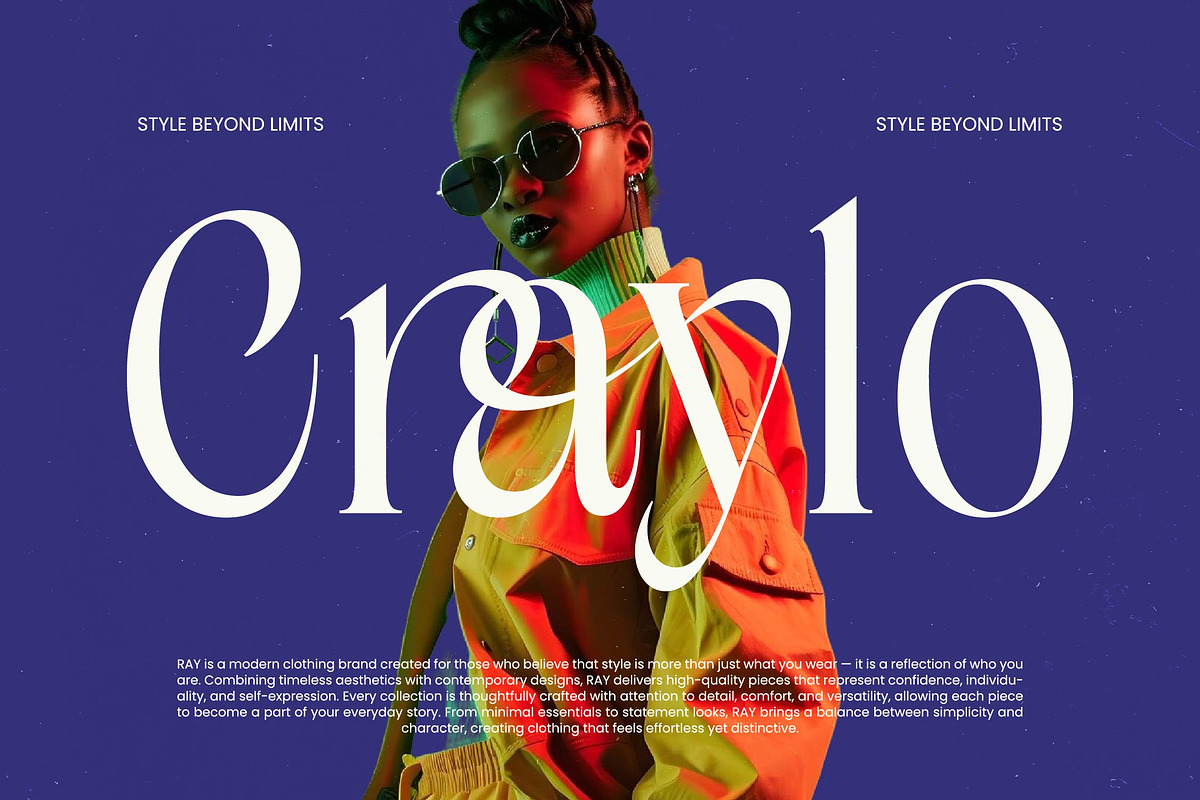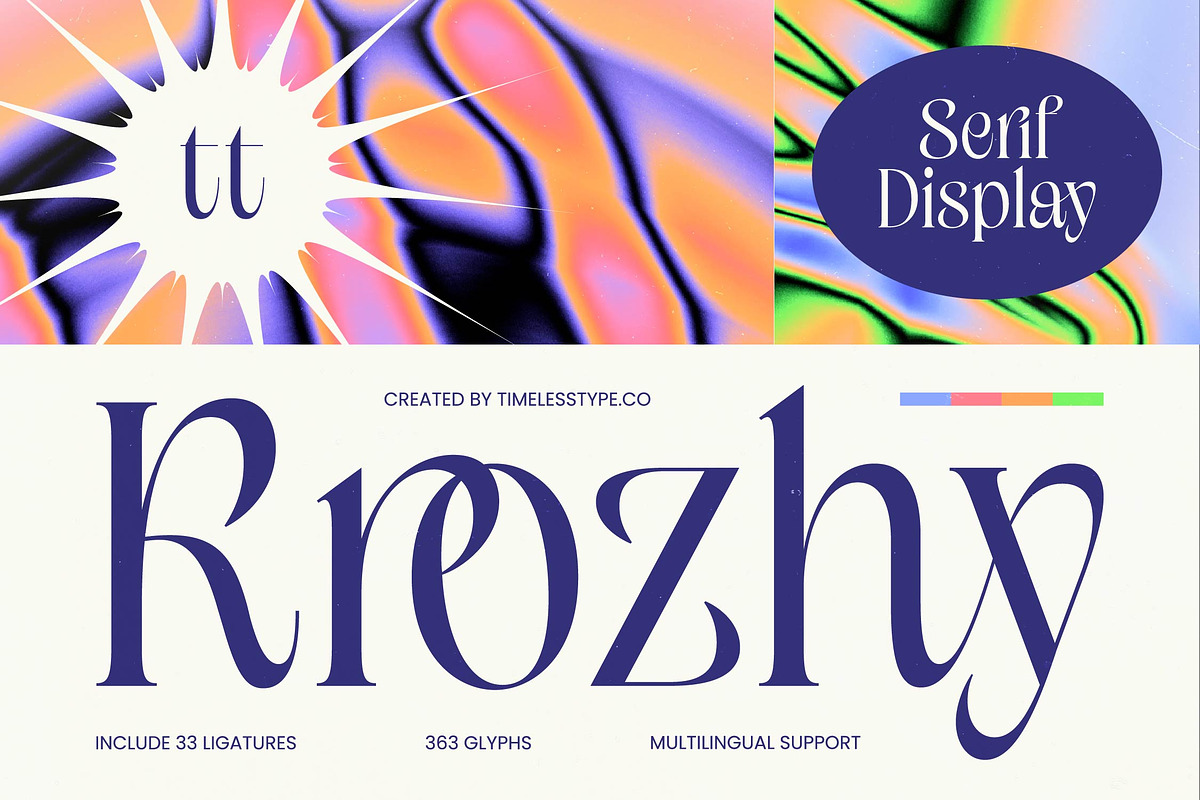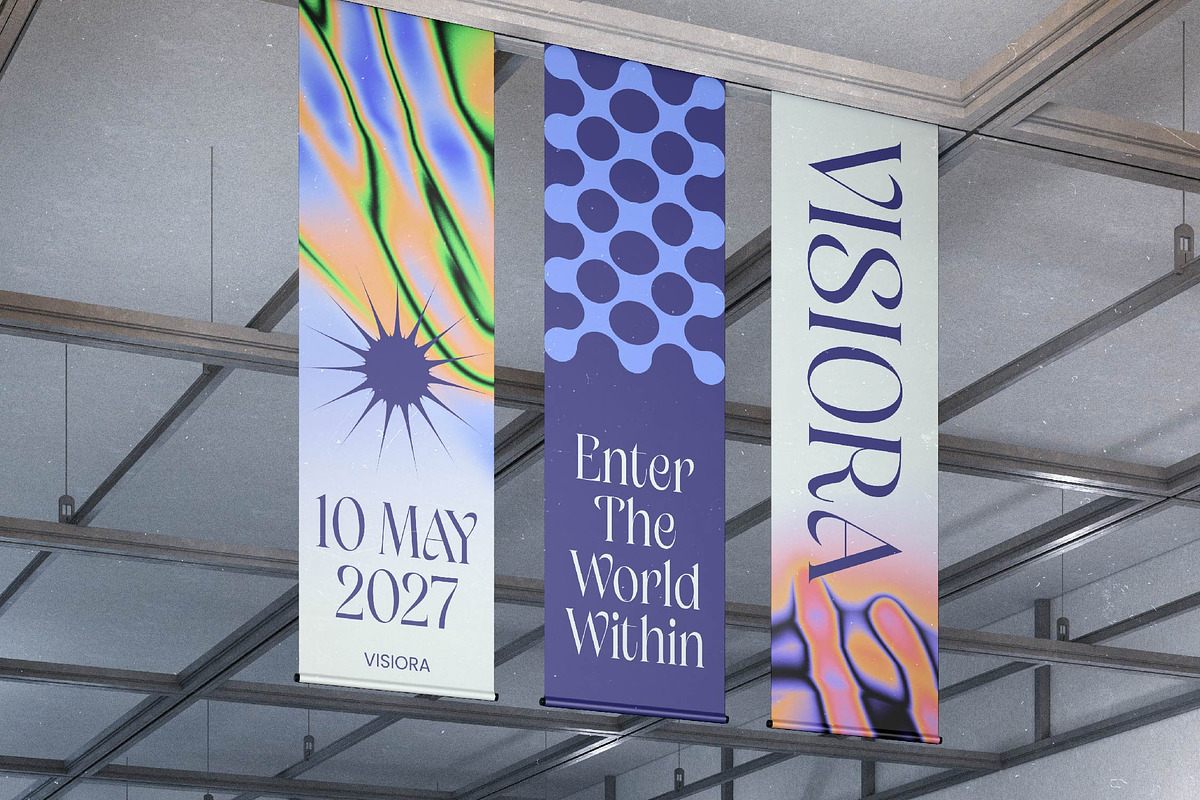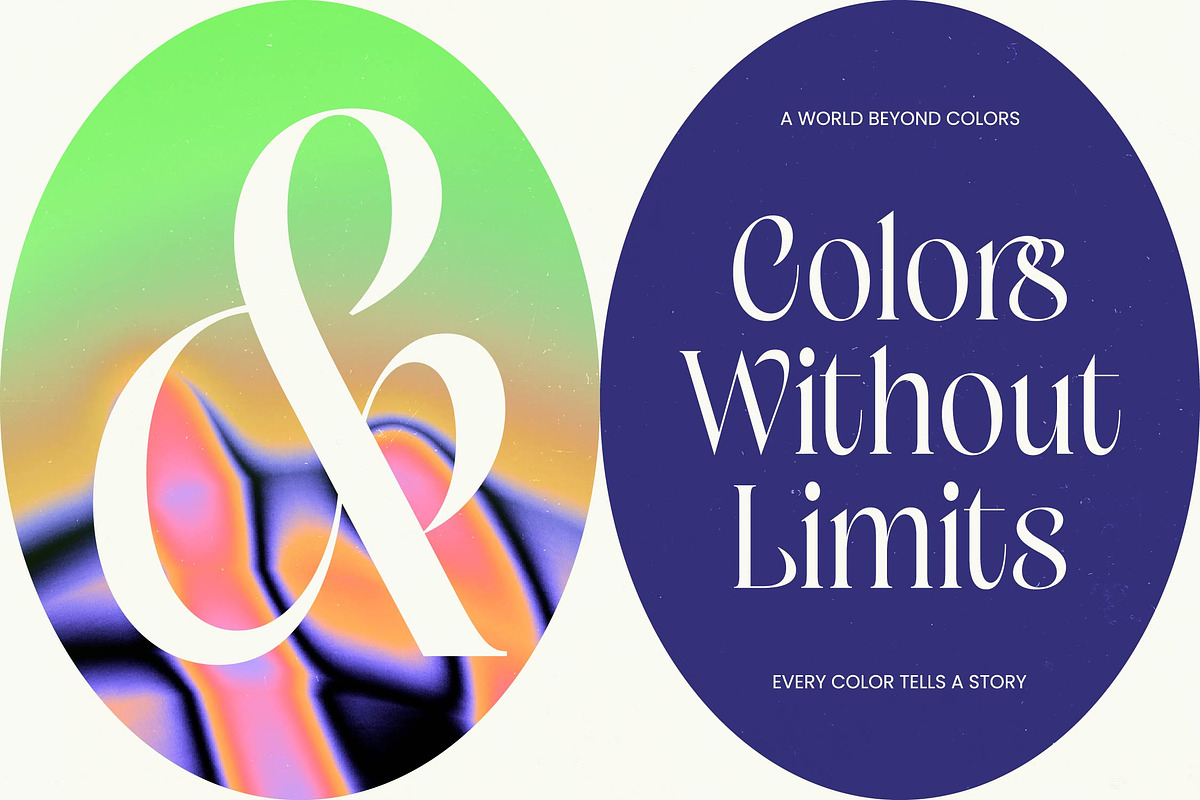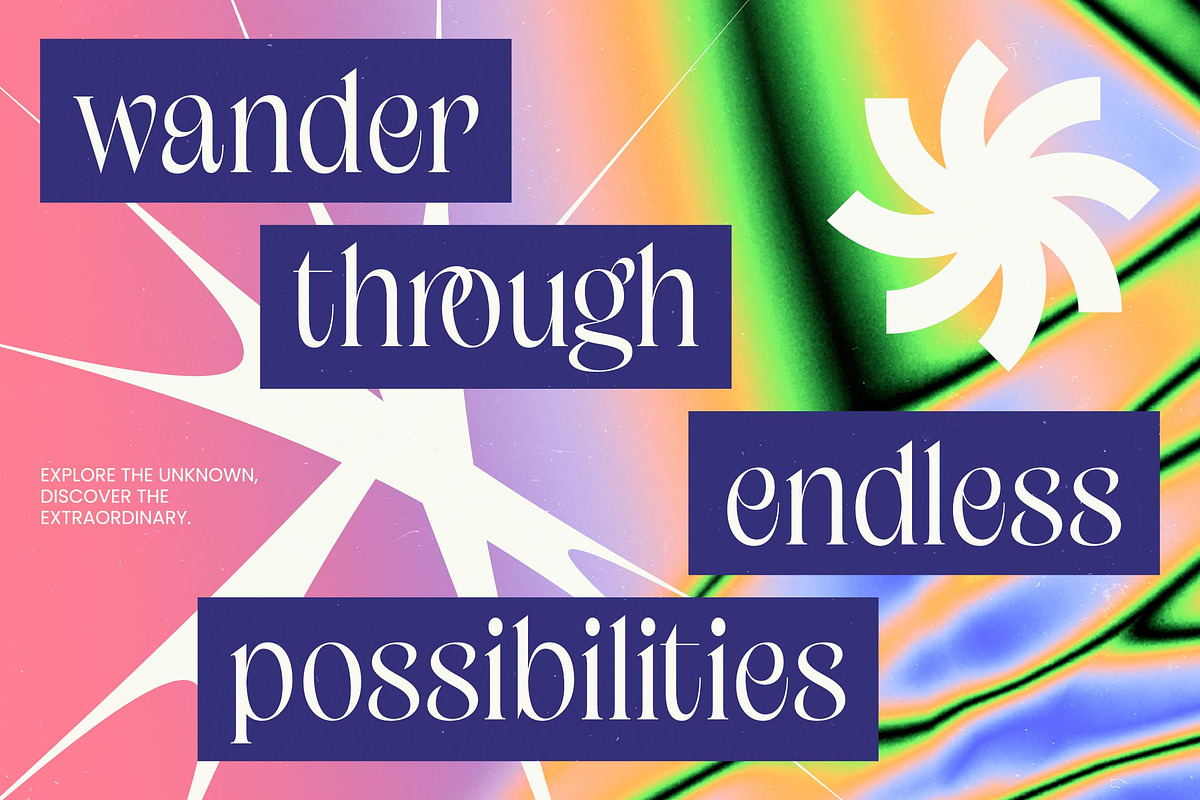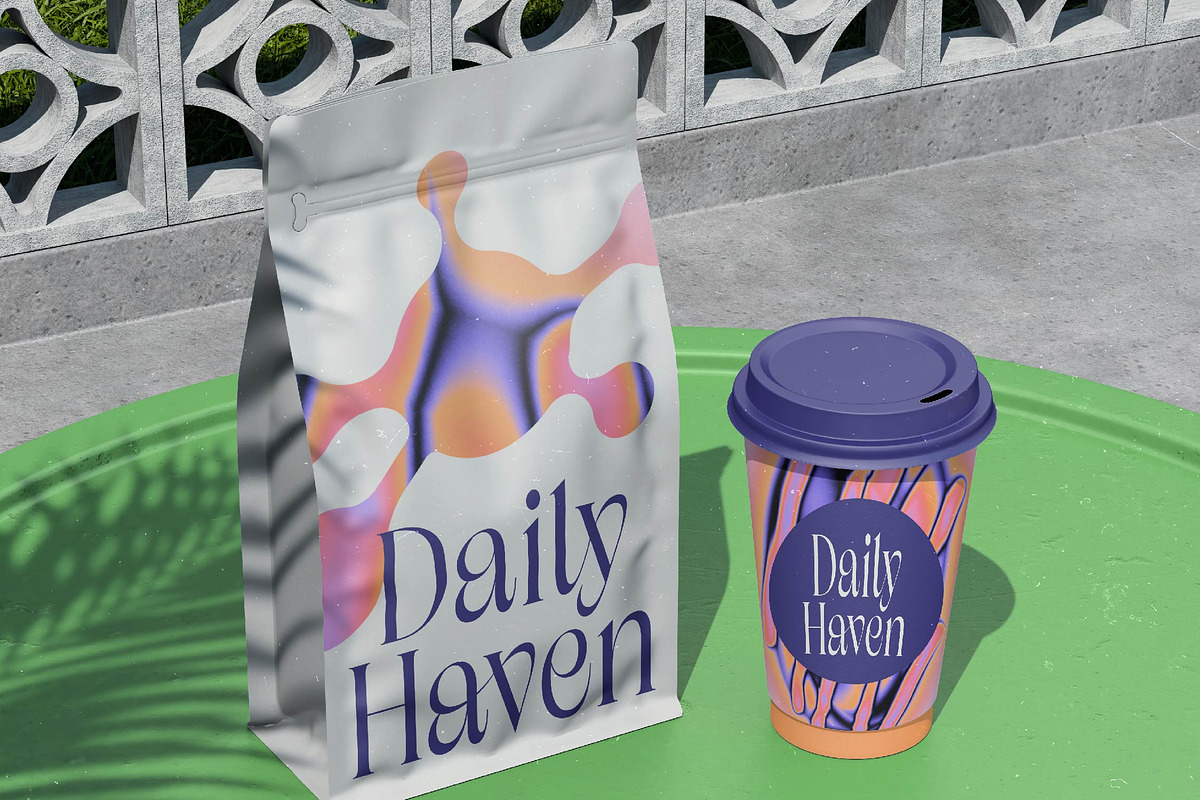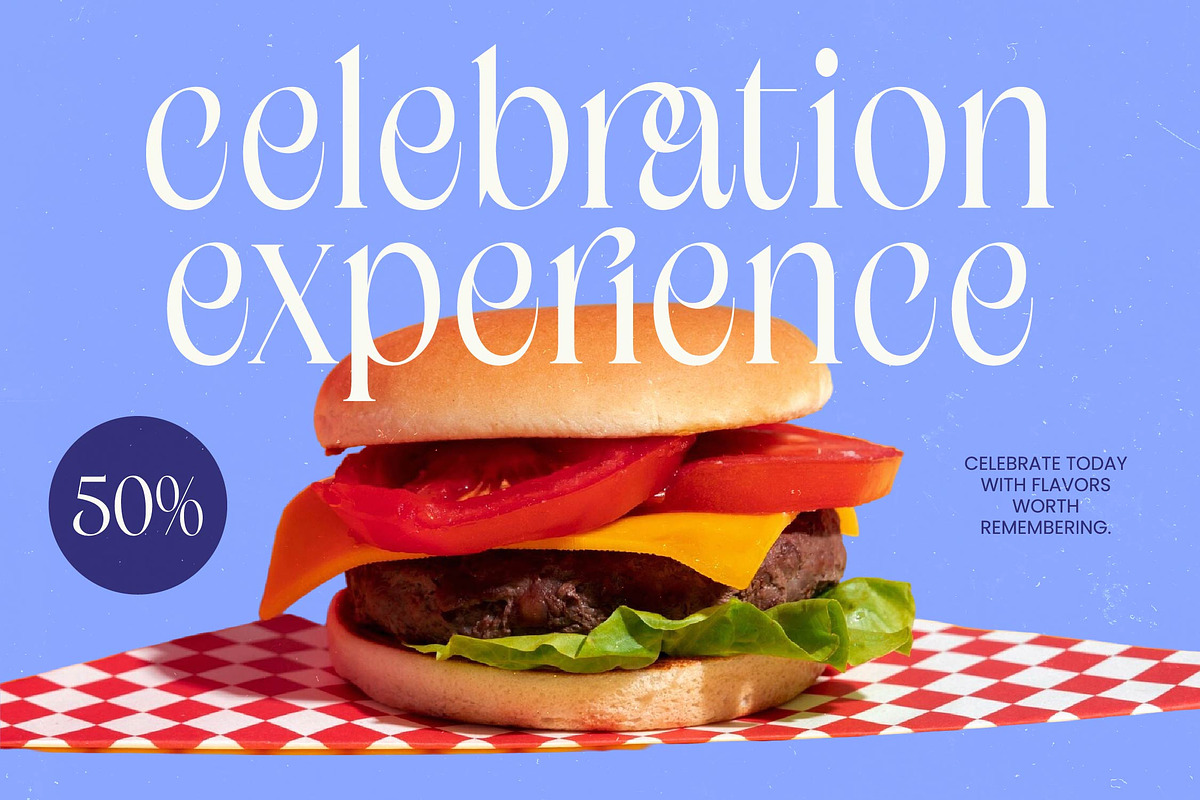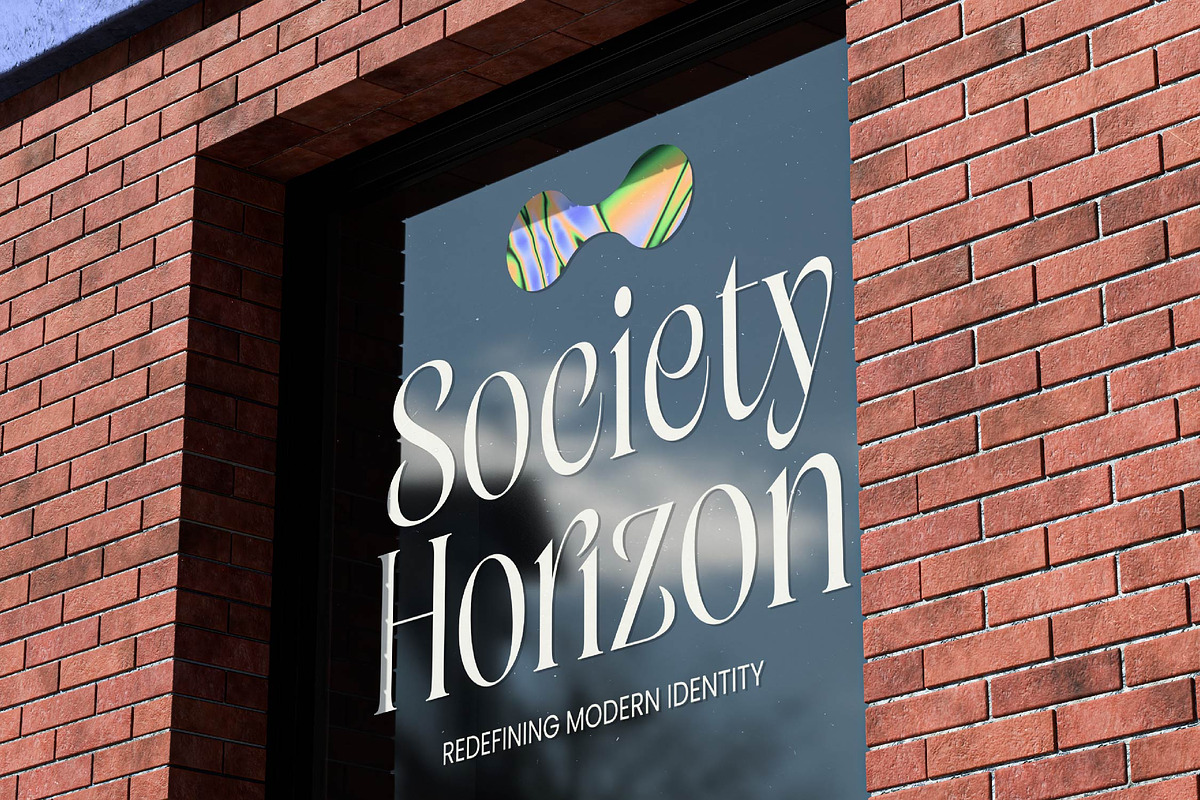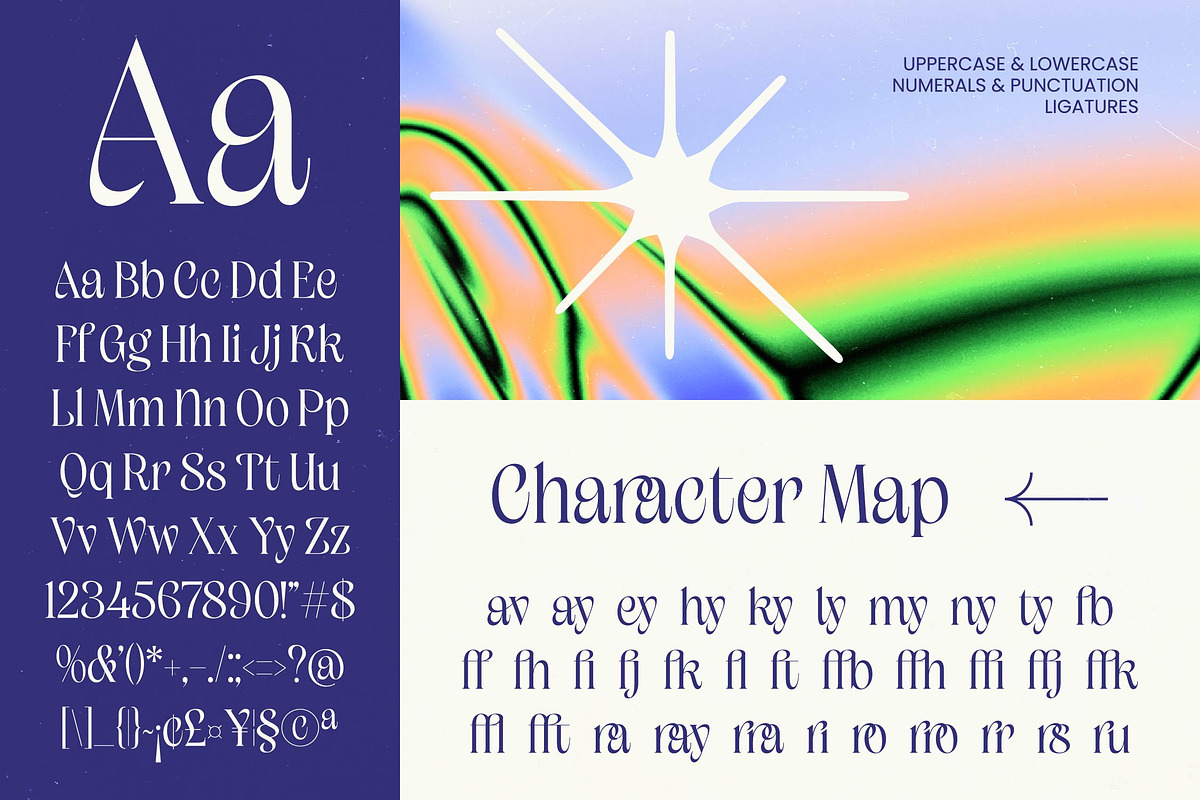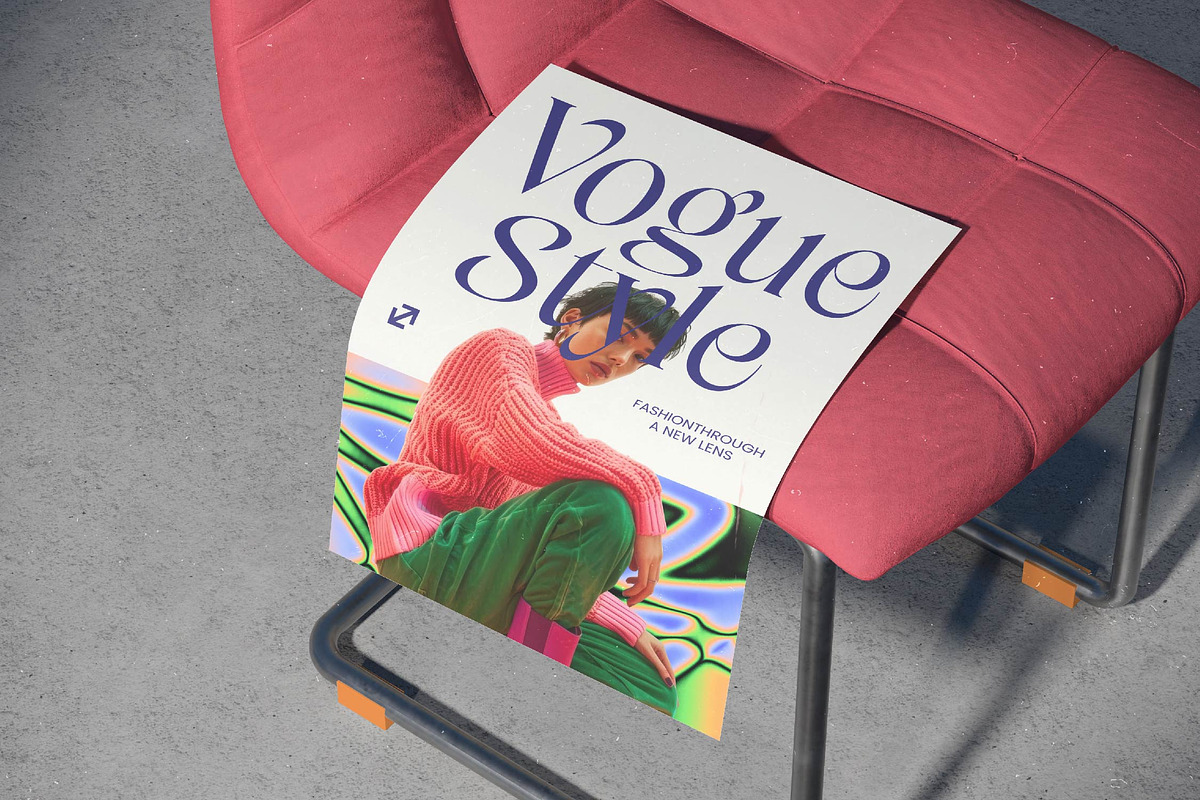
Krozhy Modern Serif Display
Krozhy – Modern Serif Display , Elevate your design projects with a touch of contemporary elegance and refined sophistication. Krozhy – Modern Serif Display is a high-contrast typeface meticulously crafted to provide a striking visual impact in any setting. Its fluid curves and sharp serifs create a harmonious balance that captures the essence of modern luxury, making it a definitive choice for high-end creative work that demands a premium aesthetic.
Unlock unparalleled creative potential with a rich array of features designed for discerning professionals. Boasting 33 ligatures and 363 glyphs, Krozhy – Modern Serif Display offers the flexibility needed to create unique typographic compositions that stand out. This display font bridges the gap between classic structure and modern flair, ensuring your headlines and titles command attention with ease.
Expand your reach with a typeface designed for a truly connected global marketplace. With its extensive multilingual support, Krozhy – Modern Serif Display adapts seamlessly across global markets, making it incredibly versatile for international projects. This technical excellence ensures that your brand voice remains consistent and professional, regardless of the linguistic requirements of your target audience.
Experience the perfect fusion of style and functionality across a wide variety of commercial mediums. Krozhy – Modern Serif Display is the ideal application for luxury branding, high-end packaging, editorial design, and fashion magazines. Whether you are crafting a distinctive logo or laying out a sophisticated layout for a print publication, this font is perfect for projects that require an authoritative yet graceful edge.